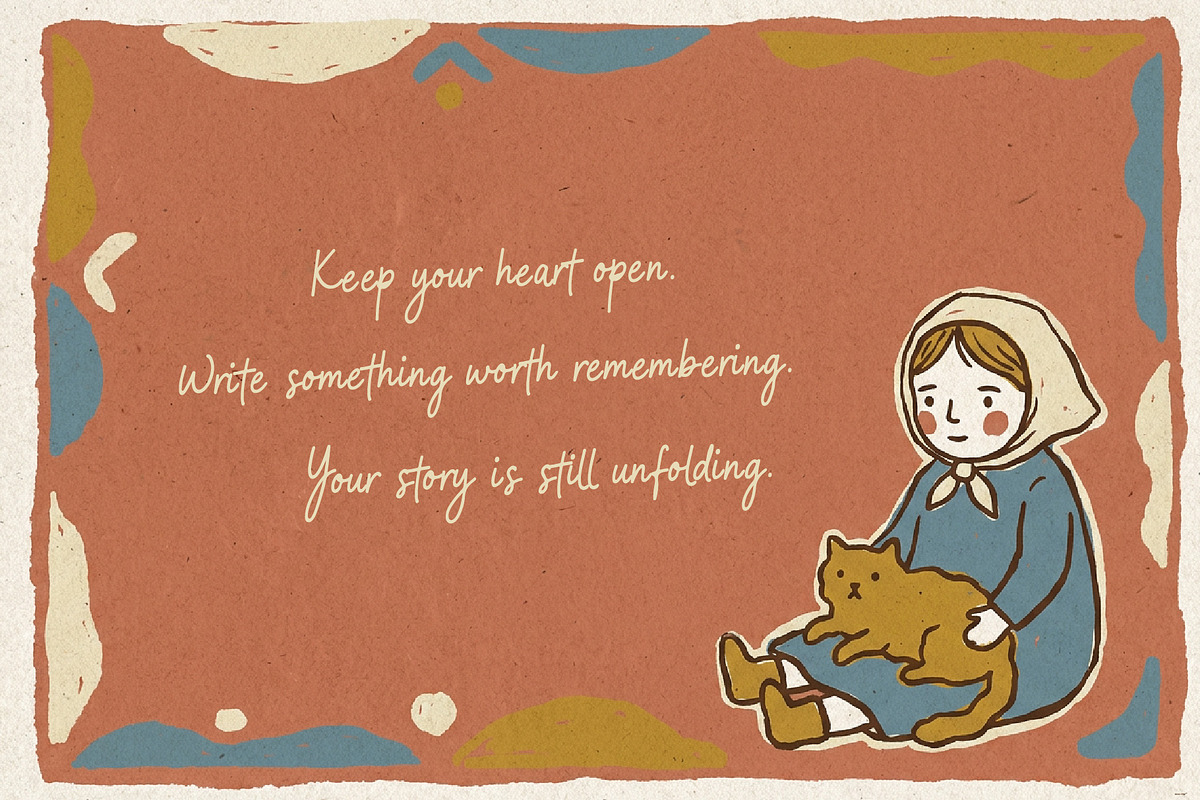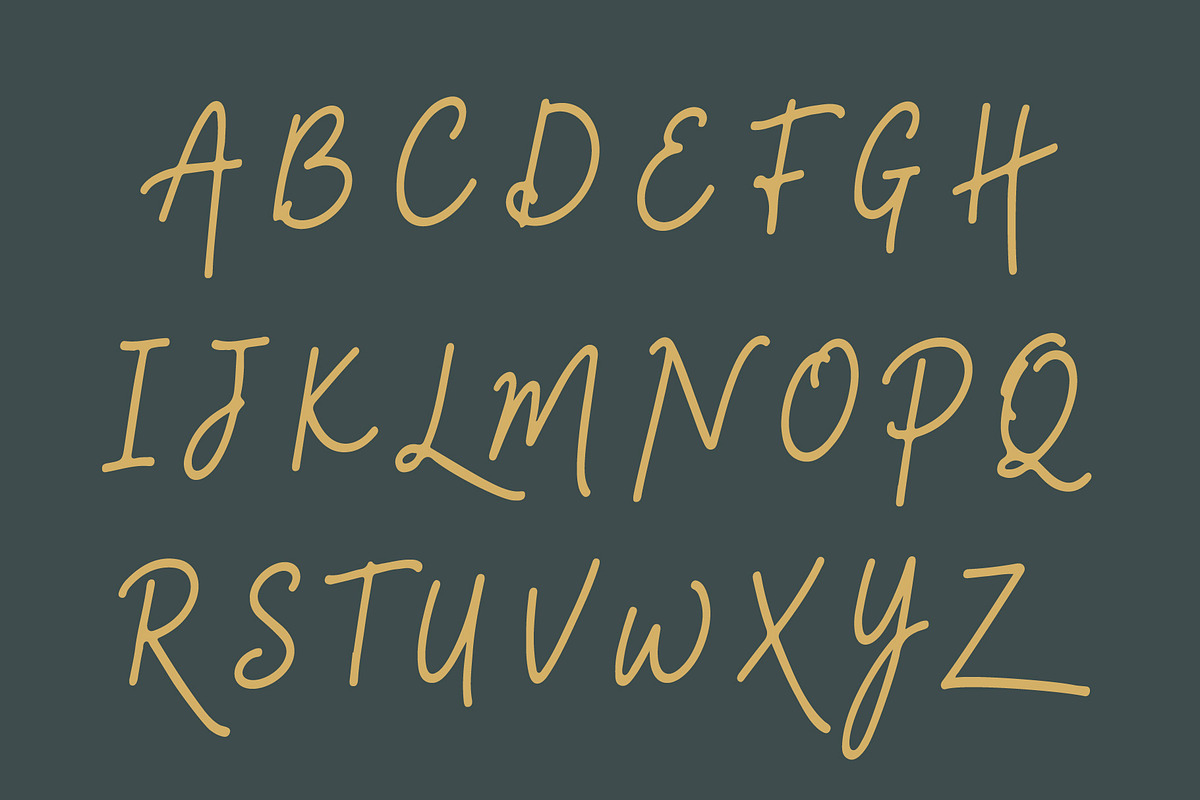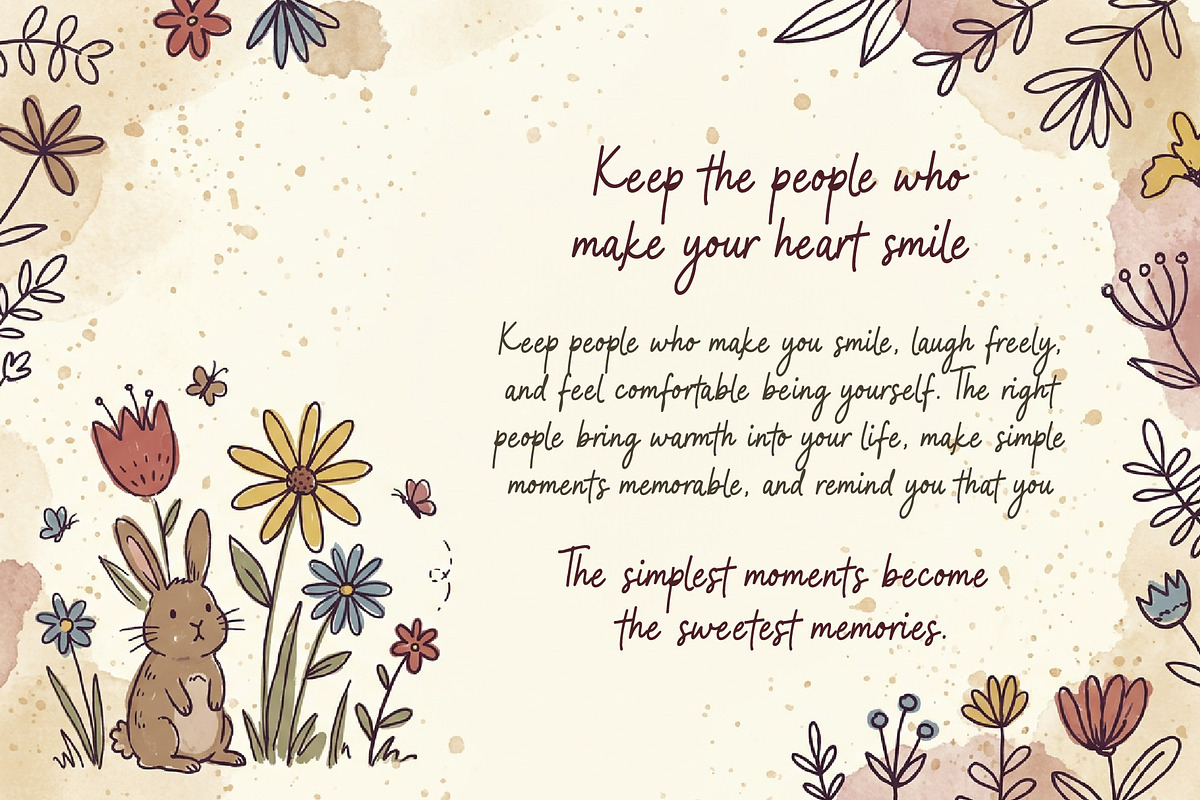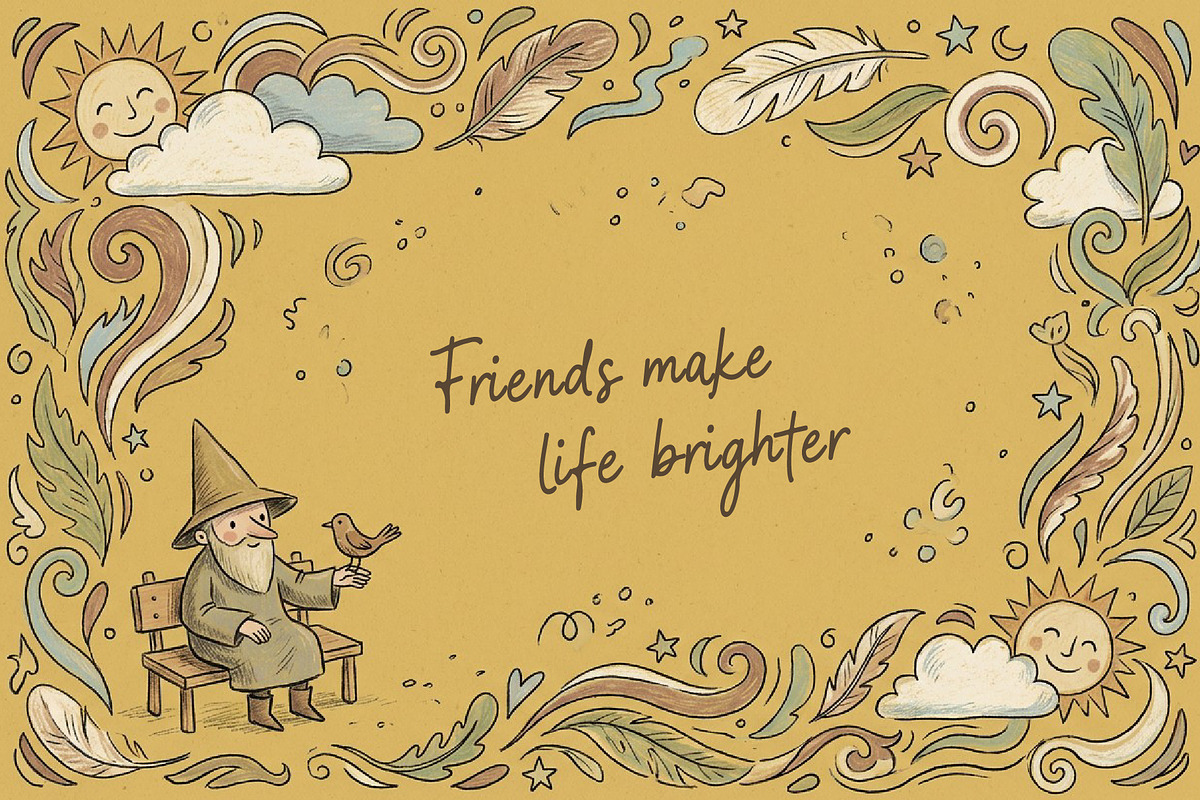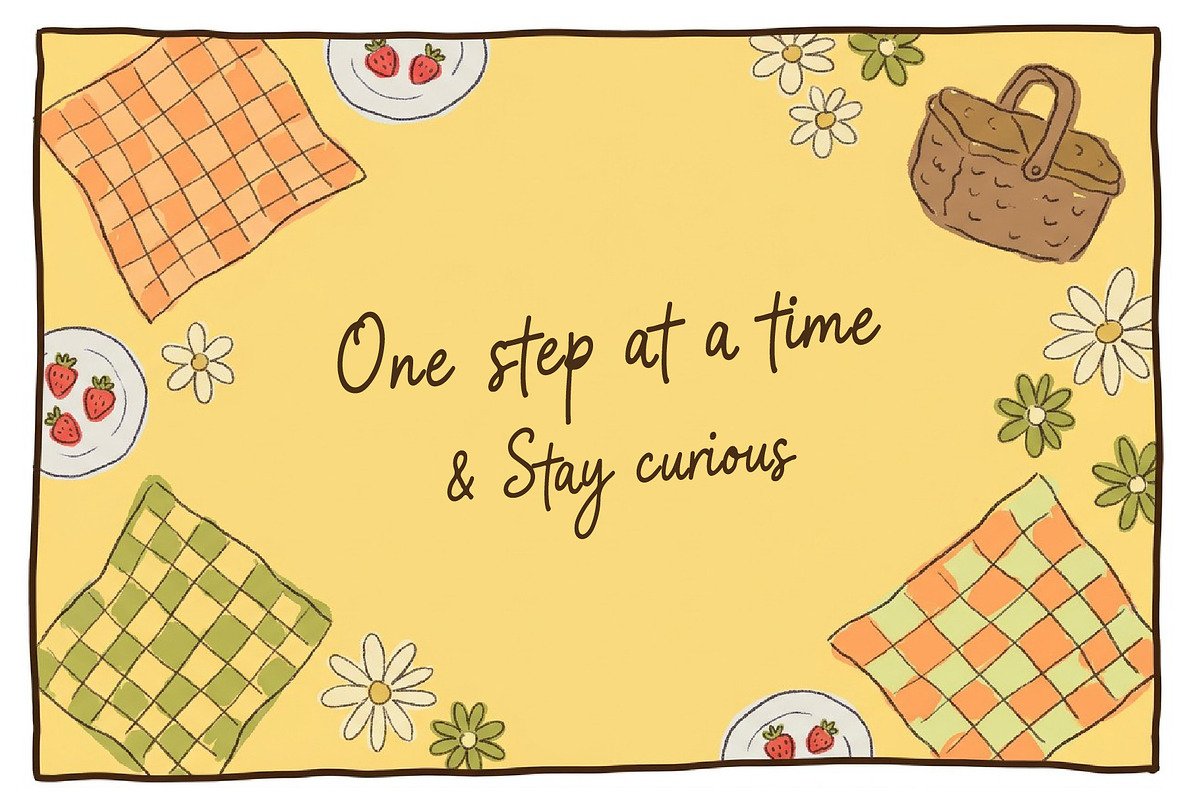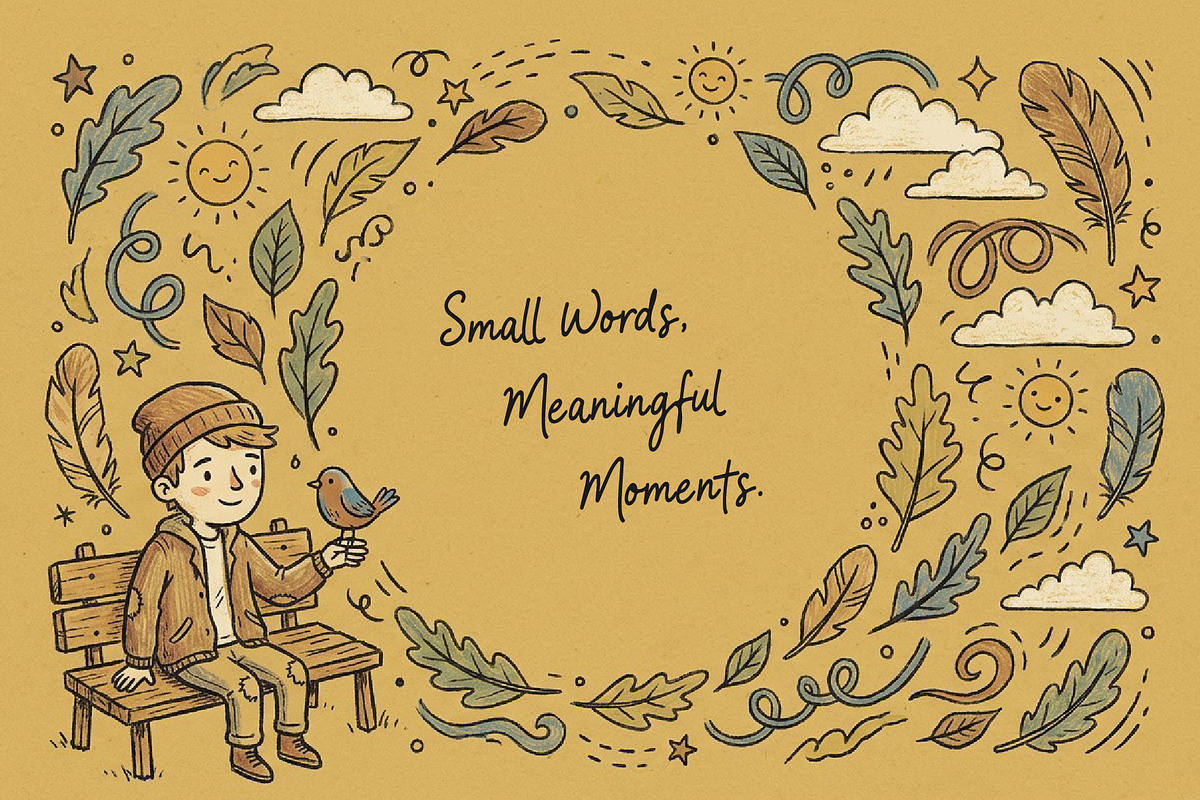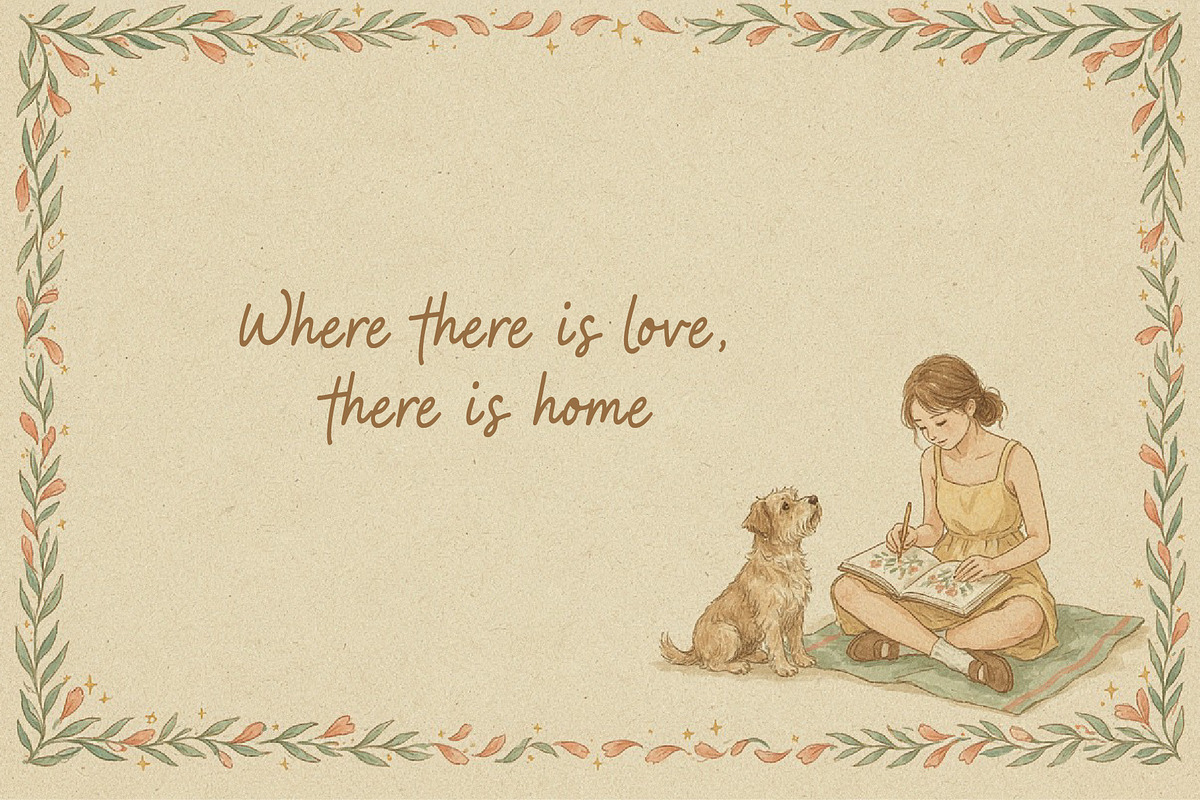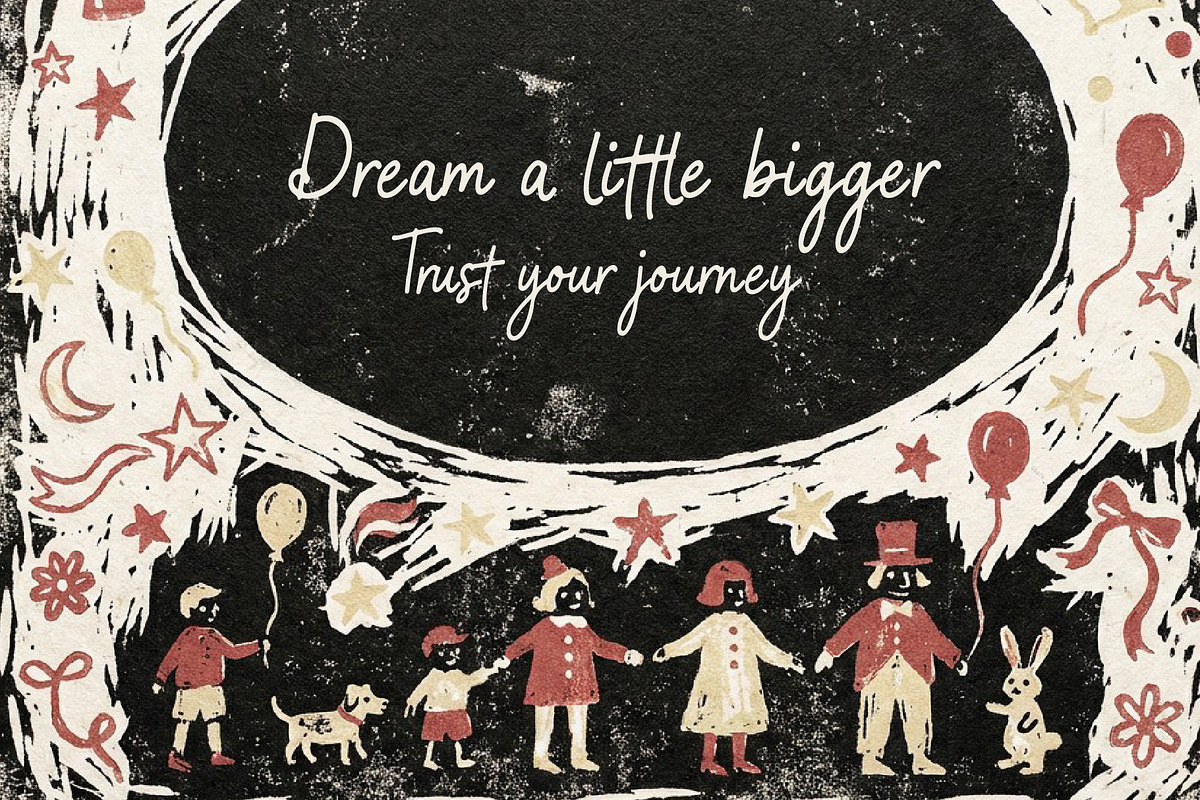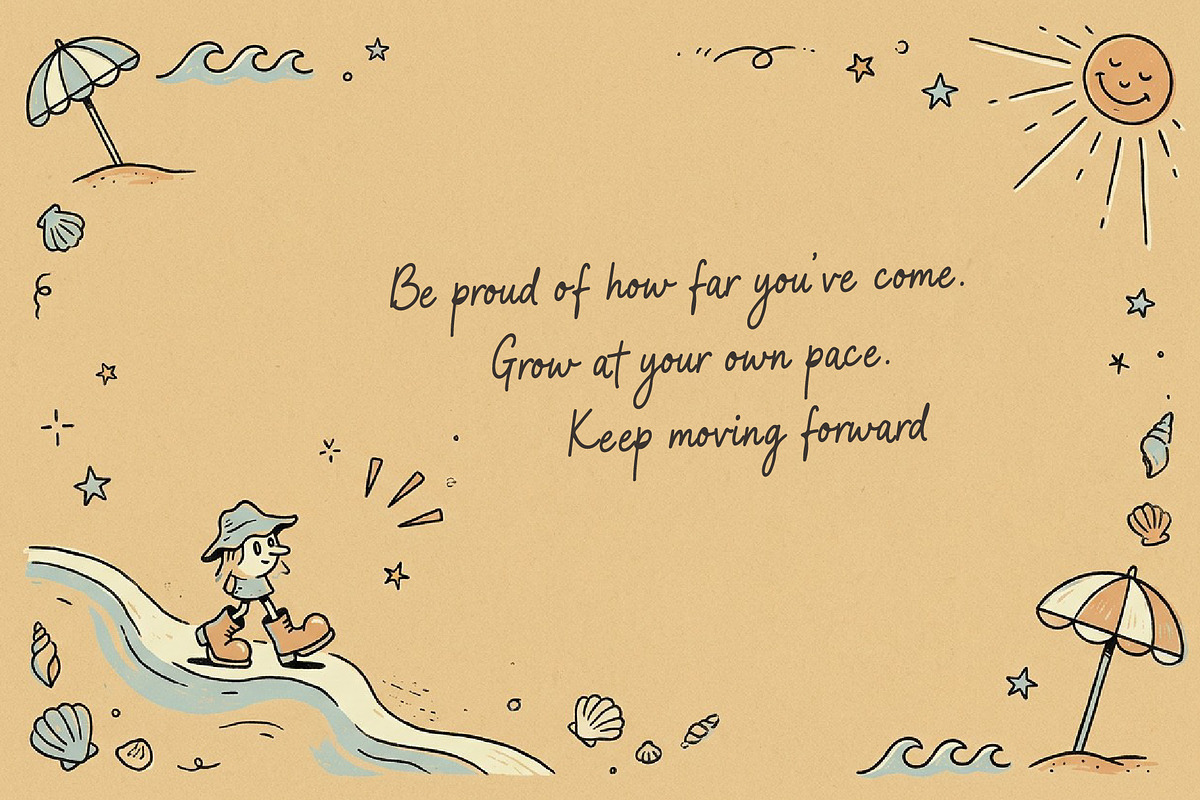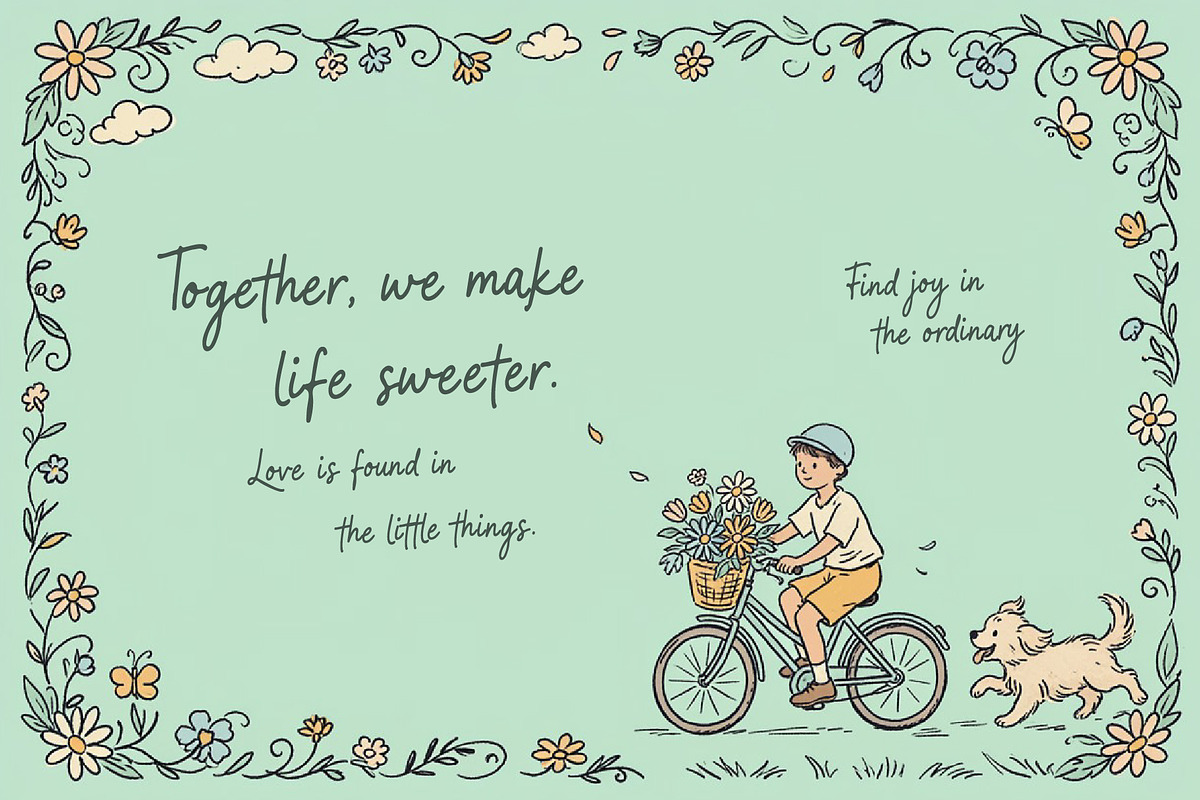
Rune Miyours - Written with Warmth
RuneMiyours is a friendly hand-drawn script font with a clean, minimalist character and a naturally playful touch. Its casual handwritten strokes bring warmth, personality, and a human feel to every word without becoming overly decorative.
Perfect for branding, logos, packaging, greeting cards, stationery, social media, invitations, quotes, lifestyle products, and everyday creative projects. RuneMiyours is made for designs that feel simple, genuine, friendly, and full of heart.